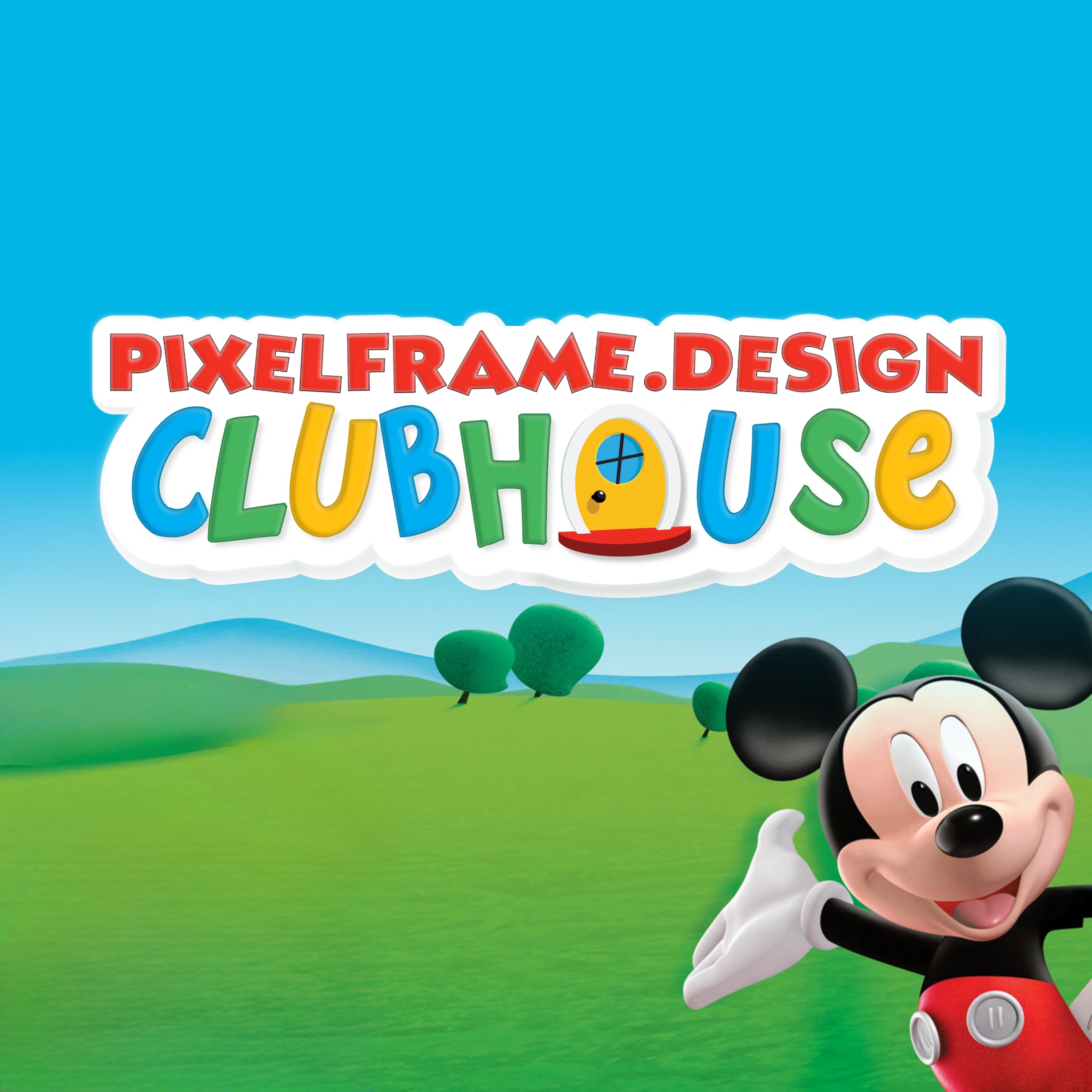
Come Inside The Mickey Mouse Clubhouse Font & Logo Generator!
This custom generator recreates that styling that made the Mickey Mouse Clubhouse logo an iconic staple of family households across the world. Complete with the bouncy two-tier lettering, alternating color scheme, and its signature touch: every capital letter “O” swaps out for the clubhouse door icon. Type in a name, a phrase, or the classic wordmark itself, and watch it render in the same colorful, energetic style that has introduced the show since 2006.
How the Mickey Mouse Clubhouse generator works: a layer-by-layer breakdown
The logo is built from two separate text blocks stacked on top of each other, each running through its own multi-pass rendering pipeline. The top line uses a bold, single-color font styled after the "Mickey Mouse" script, while the main line below uses a rounder, heavier font with alternating letter colors, styled after "Clubhouse." Each sample below renders live in your browser using the same drawing code as the generator itself, with the demo word "CLUBHOUSE." A few finishing touches — the soft white background shape that sits behind the whole logo — are still being tuned on the live generator, so these samples focus on the letter construction itself.
Layer 1: Thin colored outline
Every letter starts as a hairline outline, each stroked in a slightly darker shade of its eventual fill color — blue letters get a deep navy outline, green letters a forest-green outline, and so on. At this stage the letters are still hollow, but the alternating color pattern is already visible in the outline alone.
Layer 2: Radial gradient fill and the "O" icon swap
Next, each letter is filled with a bright, rounded gradient in its assigned color. This is also the point where the generator's signature trick kicks in: any true uppercase "O" is swapped out entirely for a small vector rendering of Mickey's ears and cap, sized and centered to sit at the same height as the surrounding letters.
Layer 3: Colored inner shadow
A soft, blurred shadow is clipped to the interior of each letter shape, nudged slightly to one side. Rather than a single flat shade, this shadow is tinted to match each letter's own color family, so the blue letters get a navy-tinted shadow and the green letters get a forest-tinted one, keeping the depth effect consistent with the fill rather than muddying it with one universal gray.
Layer 4: Shared white highlight
A second blurred pass, this time in soft white and pushed toward the opposite edge, works as a highlight rather than a shadow. Unlike the shadow layer, this highlight uses the same white tone across every letter regardless of its fill color, which is what ties the whole alternating rainbow of letters together into one cohesive light source.
Layer 5: Contact shadow
The final pass, applied to every letter and the icon alike, is a flat, softly blurred duplicate offset down and to the right. This is a lightweight contact shadow rather than a lighting effect, giving the impression that the whole wordmark is resting just slightly above whatever sits behind it — on the finished generator, that "behind" layer is the rounded white background shape mentioned above, still being refined.
The two-font pairing
The alternating rainbow treatment above belongs only to the bottom line of text. The top line, styled after "Mickey Mouse" on the original logo, uses a different, more classic script-style font rendered in a single solid red, with its own matching outline, shadow, and highlight passes rather than a cycling color scheme. Pairing a plain single-color script line above a colorful alternating-letter line is what gives the finished logo its two-tier structure.
The history behind the Mickey Mouse Clubhouse logo
Mickey Mouse Clubhouse premiered on the Disney Channel in 2006, aimed squarely at preschoolers rather than the general family audience Mickey had entertained for decades prior. The show's format was simple: Mickey and his friends invite the viewer directly into interactive adventures inside a clubhouse that could summon "Mouseketools" on command, all built around early counting, shape recognition, and problem-solving.
The logo needed to do something Disney's classic branding rarely had to: read instantly to children who could not yet read fluently. That's part of why the wordmark leans so heavily on color and shape rather than typographic complexity. Splitting the logo into two distinct lines, a smaller "Mickey Mouse" script above a large, chunky "Clubhouse," mirrors how the show itself is structured, with Mickey's name as a stable anchor and the location name doing the heavy visual lifting underneath.
The rainbow color cycling across "Clubhouse" is also a deliberate choice rather than a decorative one. Repeating a small palette of primary and secondary colors across a word is a well-worn technique in children's branding, echoed by Sesame Street's own multicolor wordmark, since it keeps the logo visually active and easy to track letter-by-letter for a young audience still learning to sound out words.